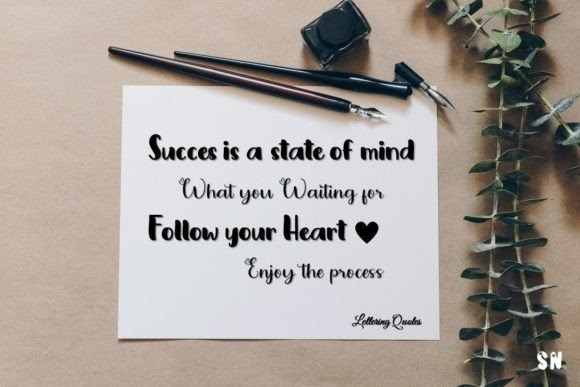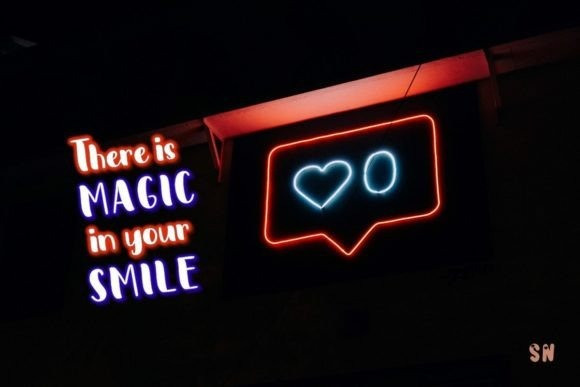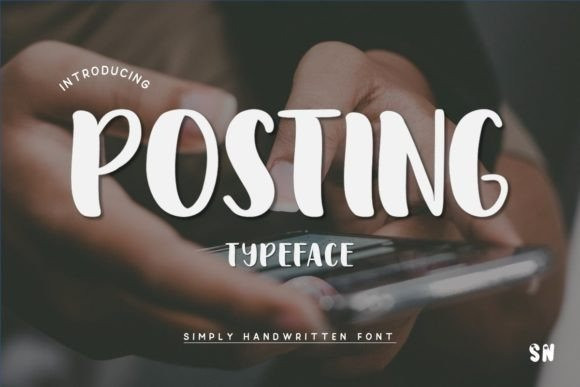
Posting Font
Posting Font is a friendly and warm handwritten font. Its calm and fun look makes it suitable for wedding invitations, quotes, greeting cards, logos, and everything that requires a peaceful touch.